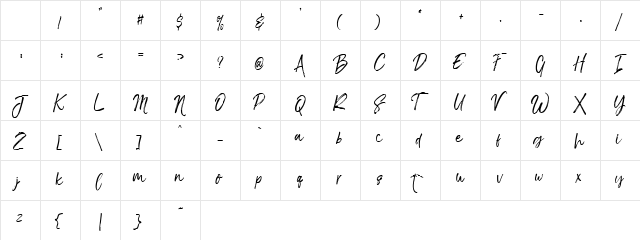
Complete The BraggestDemo Regular glyph index. Displaying only characters natively supported by The BraggestDemo Regular font.
The BraggestDemo is a composed and adaptable typeface that performs quietly and consistently across a wide range of design contexts.